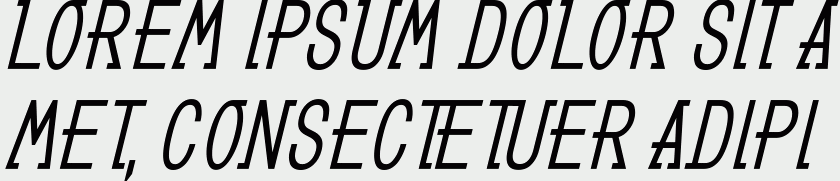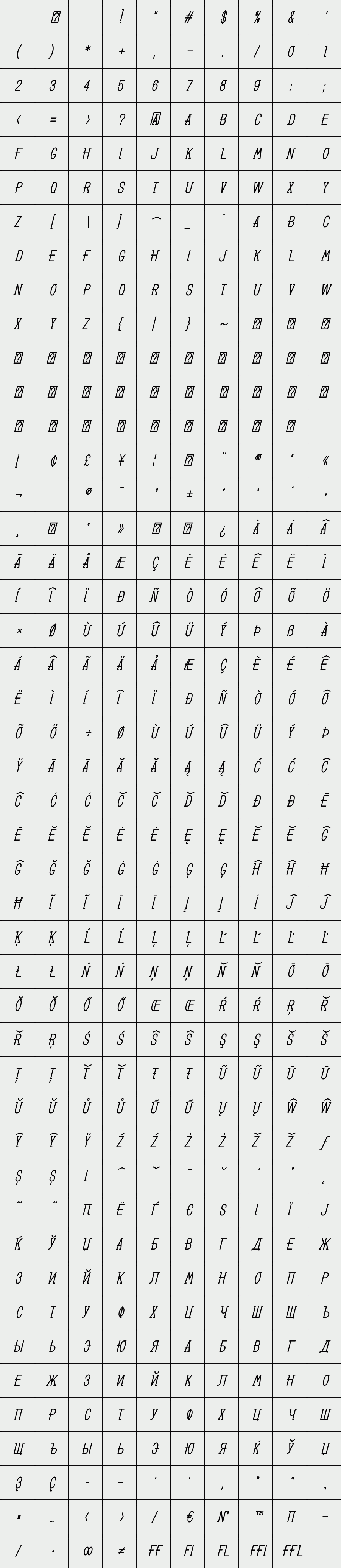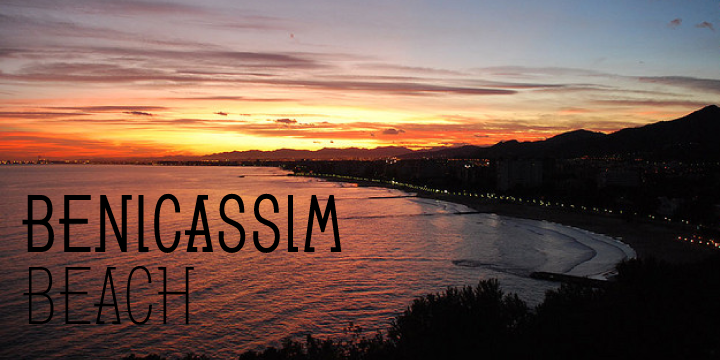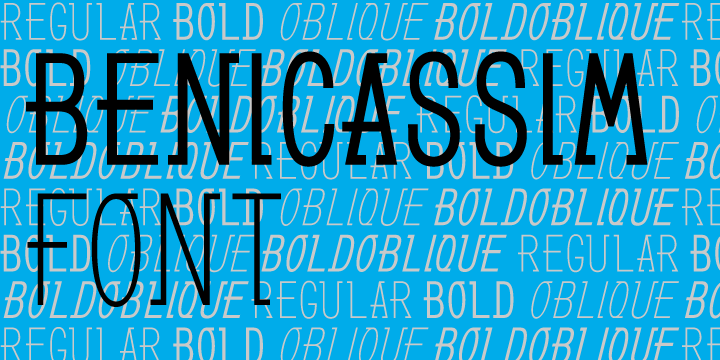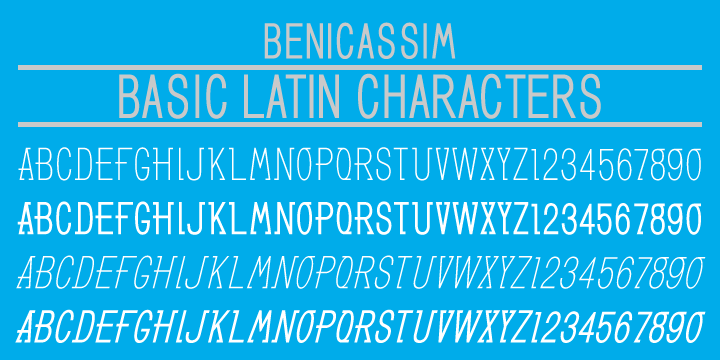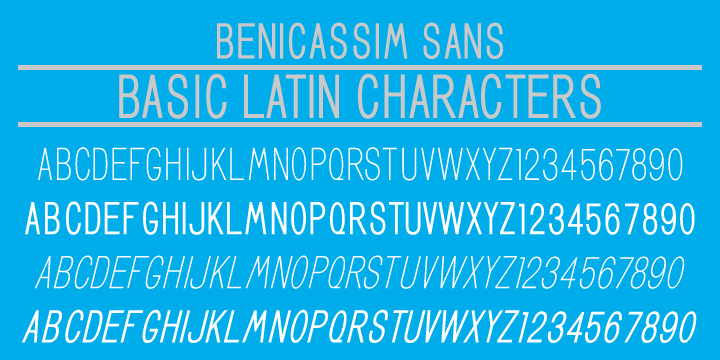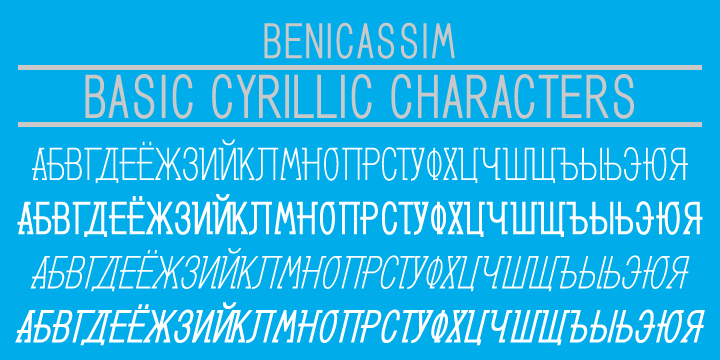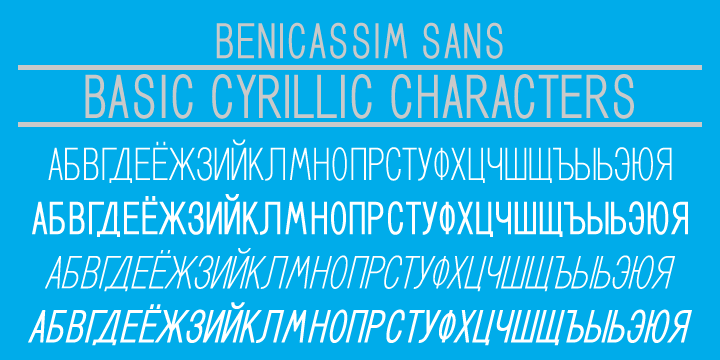
GL Benicassim
/ GL Benicassim bold oblique
GL Benicassim is a very condensed and practical font. It is only caps font, but it contains Latin and Cyrillic characters, as well as all kind of accents to be compatible with many languages.
It will give to your designs a fancy and fashionable touch and it is specially practical when the space you have is not too big, since it is really condensed.
Designer: Germán León